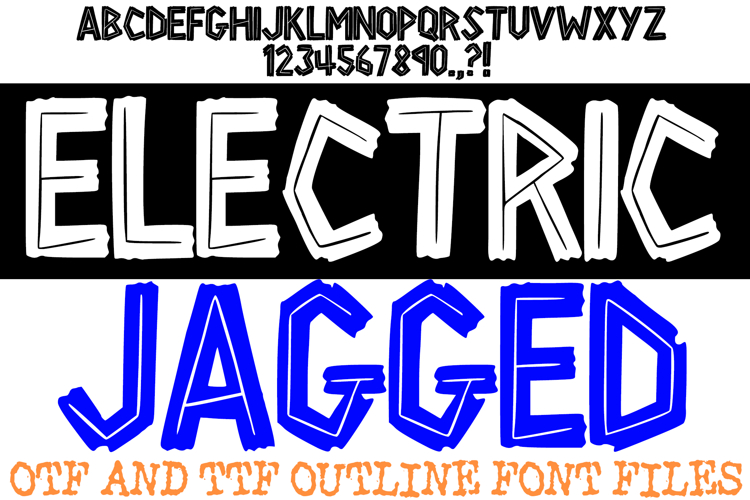
Ignite your creative projects with the high-voltage energy of the Electric Jagged Font! This hand-drawn display alphabet features bold, vibrating characters defined by sharp, zig-zagging edges and a unique double-outline effect. It is the ultimate choice for high-impact branding, gaming graphics, edgy streetwear, and modern posters that need to scream with energy.
The "static" or "cracked" aesthetic of each letter gives your text a sense of rapid movement and raw power. Whether you are designing for an extreme sports event, a gritty graphic novel, or eye-catching social media content, the Electric Jagged Font delivers a professional, electrified look that demands attention.
Why Your Designs Will Buzz:
Double-Outline Detail: Every character features a distinct offset outline that creates a vibrating, 3D "static" effect.
Sharp, Energetic Edges: The jagged, lightning-bolt corners provide a high-energy, aggressive aesthetic.
Hand-Drawn Grit: Captures the authentic, non-uniform feel of a sketch, adding a human touch to digital designs.